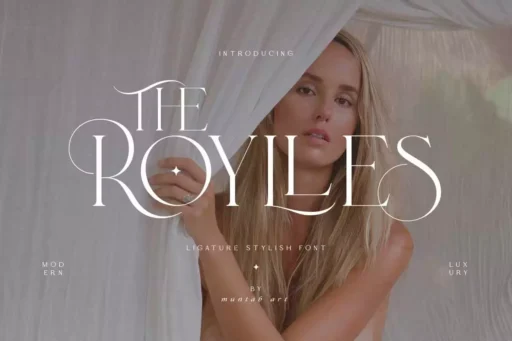
Roylles Font
Roylles is a modern luxury serif font designed by Muntab Art with a modern look and feel for today’s luxury products. It has uppercase letters, numerals and a tremendous set of punctuation, plus sophisticated ligatures and a set of alternates. This advanced serif font resembles modernity in style and functions well with a wide range of projects, including posters, the web, brands, images, labels, and more.
Roylles Font is a Serif Fonts font that brings a professional and versatile look to your projects. Roylles is a modern luxury serif font designed by Muntab Art with a modern look and feel for today’s luxury products.